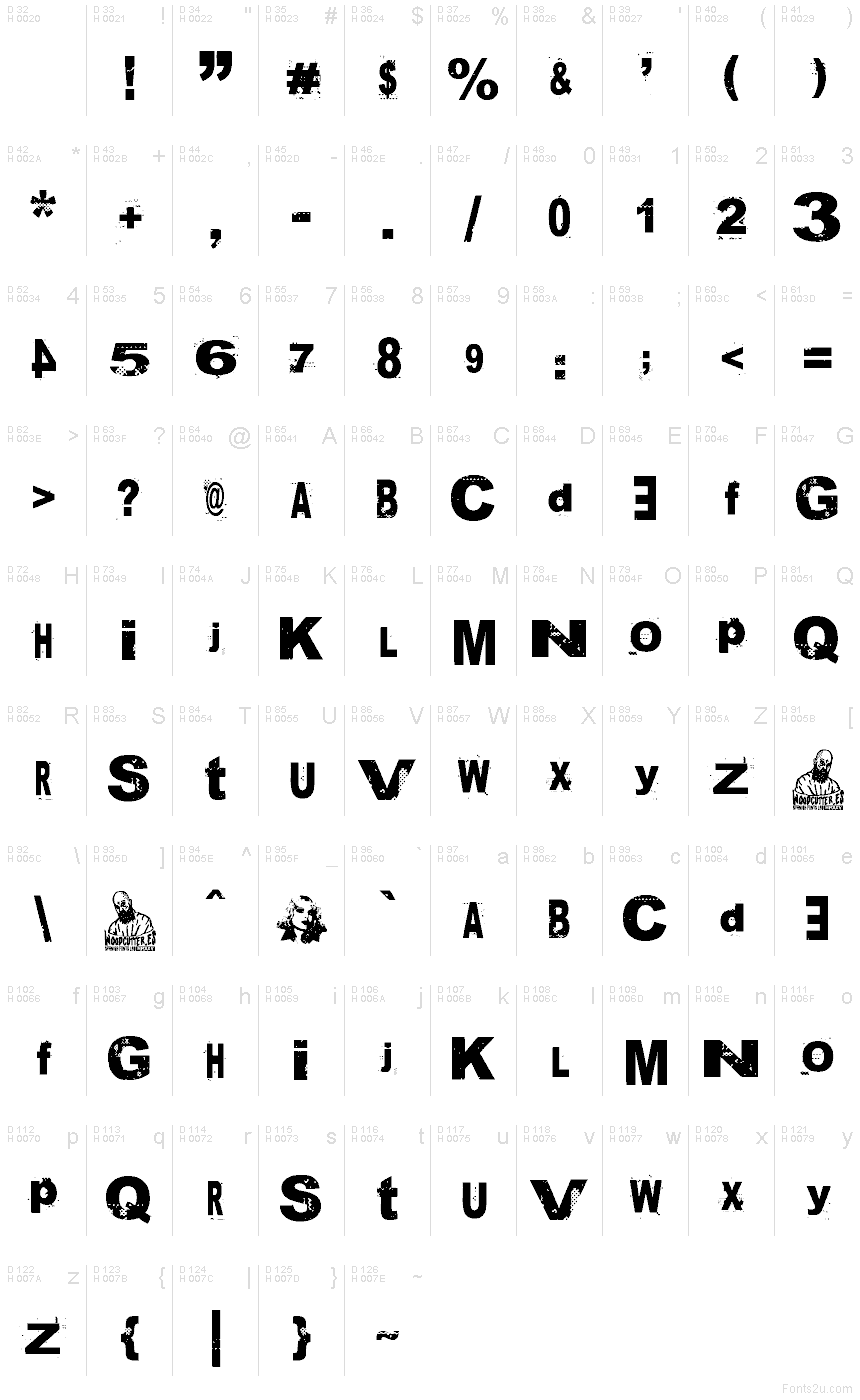
Nancy Spungen Basic
Nancy Spungen Basic font by Woodcutter is a distorted display font with eroded lettering that employs a bold weight. Although each character has its peculiar design style, the overall atmosphere of the font is one of industrial appeal and of modernist nature with geometric influences as well.